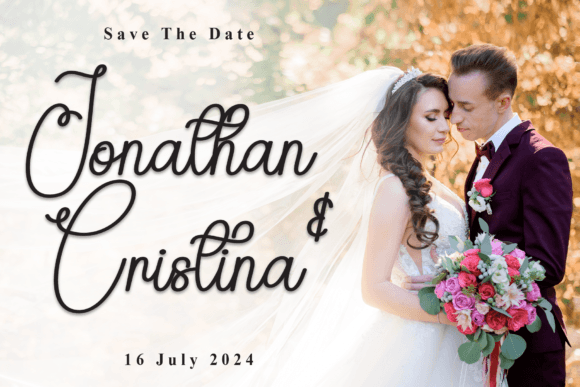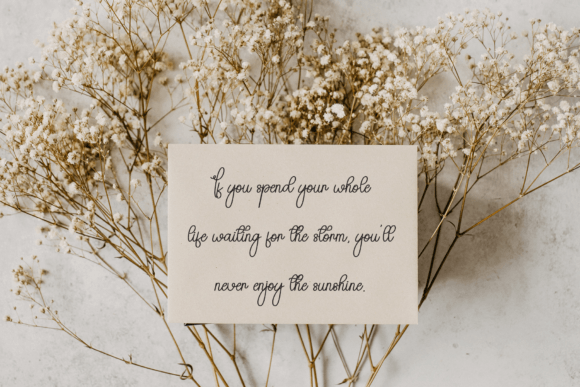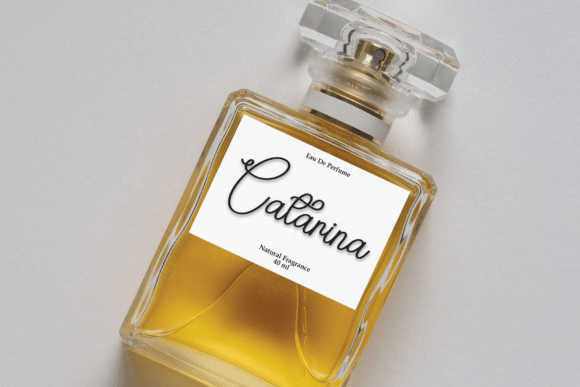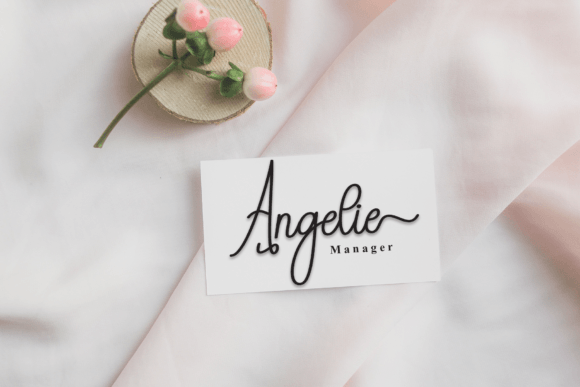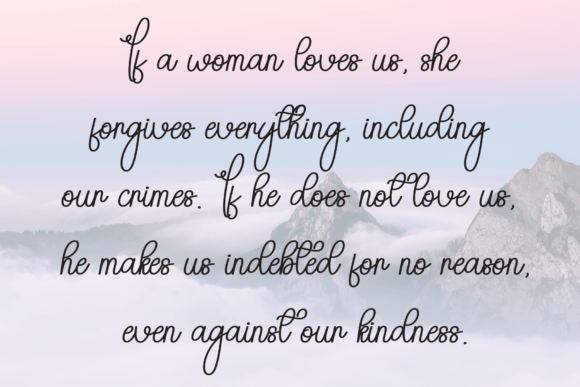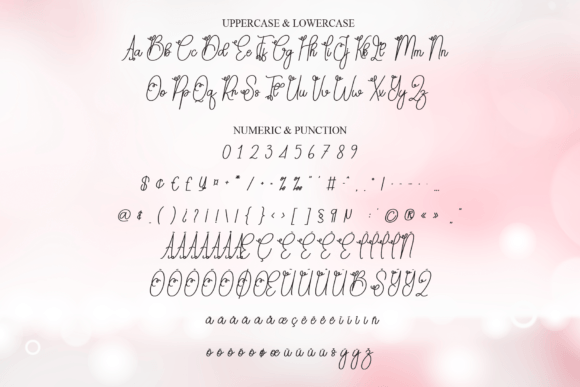
Discover the Magic of the Barbie Font
Do you remember the excitement of unwrapping a brand new box of crayons as a child? The thrill of creating something entirely new, unbridled by rules and expectations? For designers, that same sense of creative freedom is what drives us to experiment with new fonts, colors, and textures. And, sometimes, that magic happens when we stumble upon a font that speaks directly to our soul.
Enter the Barbie Font, a delightful handwritten typeface that exudes warmth, charm, and charisma. This font is perfect for adding a touch of whimsy to wedding invitations, crafting personalized cards, or infusing a playful quirkiness into any design concept. Its adorable features and endearing qualities make it a must-have for designers looking to add a sprinkle of fun to their projects.
Key Features of Barbie Font
- Font Style: Script font with a playful, cursive design, inspired by the iconic Barbie doll.
- Unique Characteristics: Features a distinctive, flowing design with swashes and flourishes, evoking a sense of whimsy and femininity.
Designer Review: Barbie Font
The Barbie Font is an eye-catching, playful font designed for young girls and kids. ✨ It’s perfect for creating fun, vibrant, and colorful content such as children’s books, party invitations, and even social media graphics. The font’s cursive style and swashes add a touch of elegance, making it suitable for more sophisticated projects.
- Fun and playful design
- Perfect for young audiences
- Wide range of usage options
However, there are a few limitations to consider. ⚠️ The font may be too sweet or over-the-top for some users, and its usage might be restricted in more professional or formal contexts. Additionally, the font’s complexity may make it challenging to use in certain design applications or at smaller font sizes.
Overall, the Barbie Font is a delightful and engaging font that’s perfect for creating fun, playful content. While it may have some limitations, its unique design and versatility make it a great addition to any designer’s toolkit.
Tips for Getting the Most Out of the Barbie Font
1. Use the Barbie Font for feminine and playful designs.
2. Pair the Barbie Font with other fonts that have a similar style and tone.
3. Experiment with different font sizes and colors to create visual interest.
1. Fashion and beauty branding.
2. Children’s products and packaging.
3. Social media and advertising campaigns.
Alternatives to “Barbie Font” for Designers
Great Vibes is a beautiful, elegant script font that is perfect for creating a feminine and sophisticated look. It’s ideal for use in invitations, greeting cards, and other materials where a touch of elegance is required.
Compared to Barbie Font, Great Vibes has a more refined and sophisticated feel, making it suitable for a wider range of design applications.
Pacifico is a stylish and modern script font that is perfect for creating a fun and casual look. It’s ideal for use in social media posts, blog headers, and other materials where a relaxed and friendly tone is required.
Compared to Barbie Font, Pacifico has a more relaxed and casual feel, making it suitable for a wider range of design applications, including digital materials.
Carolyna Pro is a beautiful and elegant script font that is perfect for creating a sophisticated and feminine look. It’s ideal for use in wedding invitations, branding materials, and other materials where a touch of elegance is required.
Compared to Barbie Font, Carolyna Pro has a more refined and sophisticated feel, making it suitable for high-end design applications.